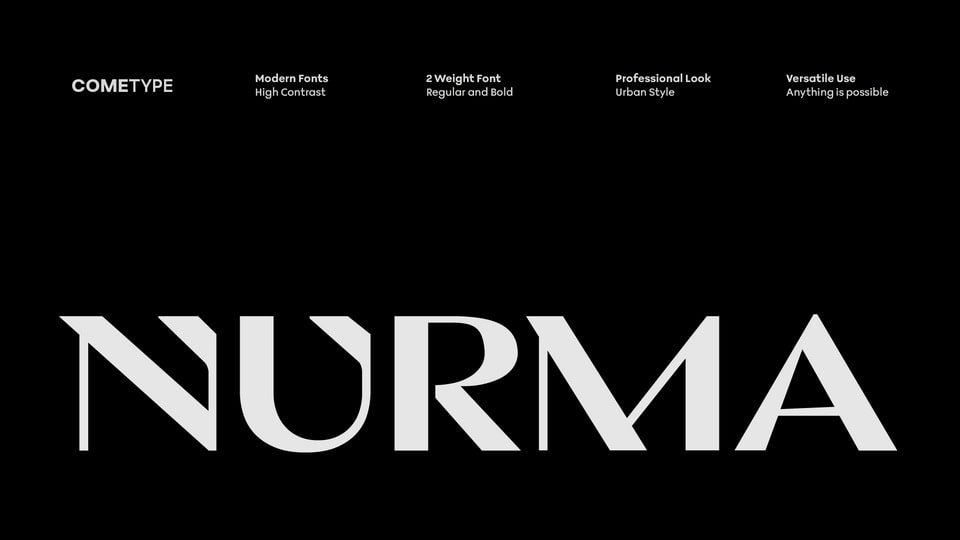
Download Nurma font, a modern and dynamic urban display typeface, providing a trendy and bold feel with impactful and confident capital letters.
Designer: ComeType